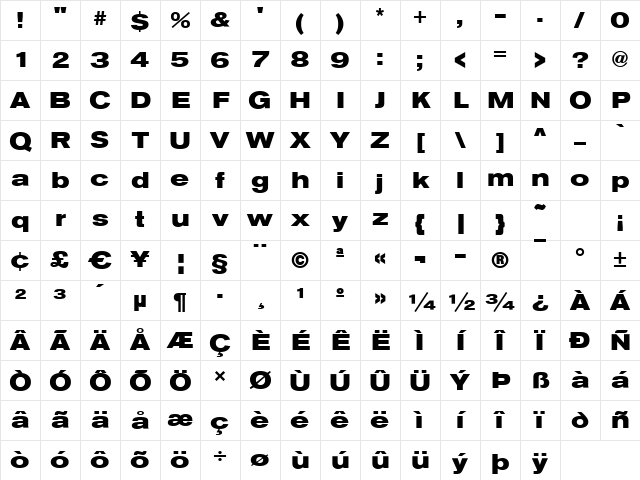
Ancona-Ex-Heavy Regular
Design Context for Ancona-Ex-Heavy
Ancona-Ex-Heavy is a composed and adaptable typeface that performs quietly and consistently across a wide range of design contexts.